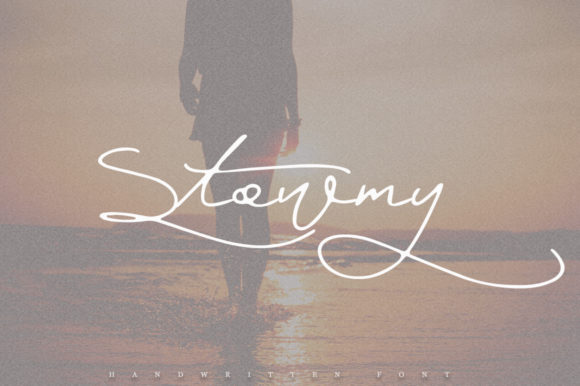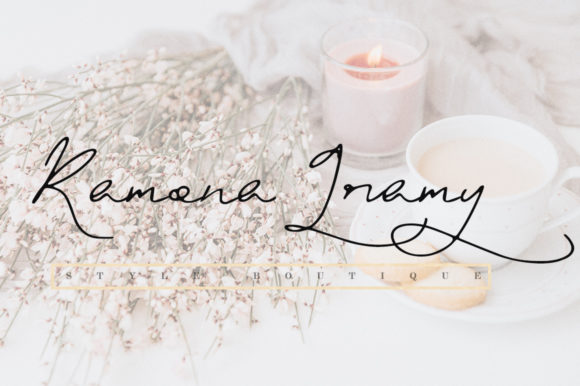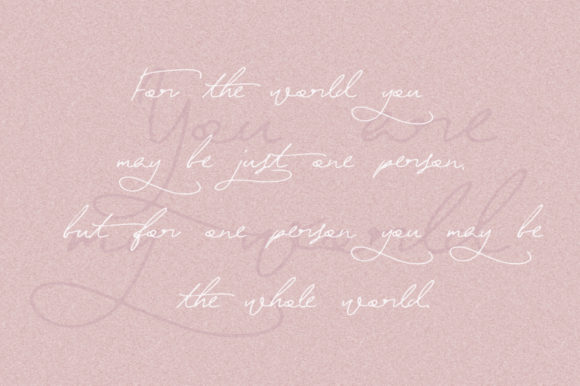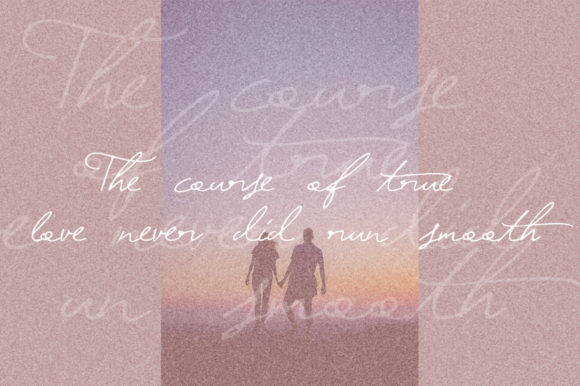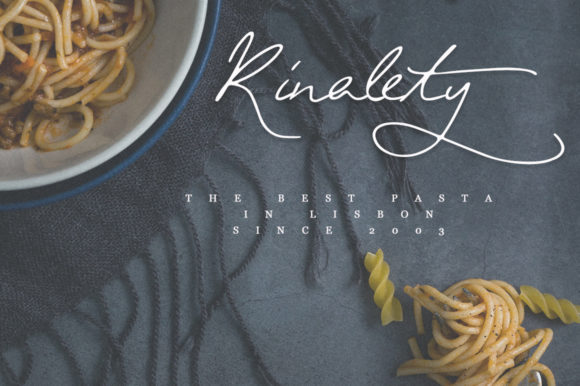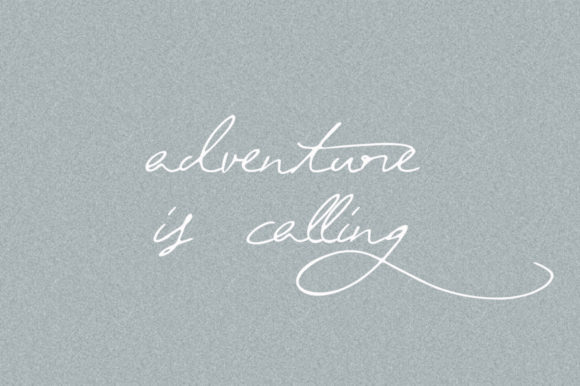
Stowmy Font
About Stowmy Font
Stowmy is a light and elegant handwritten font with an effortlessly sophisticated touch. It will elevate any design project with its authentic charm.